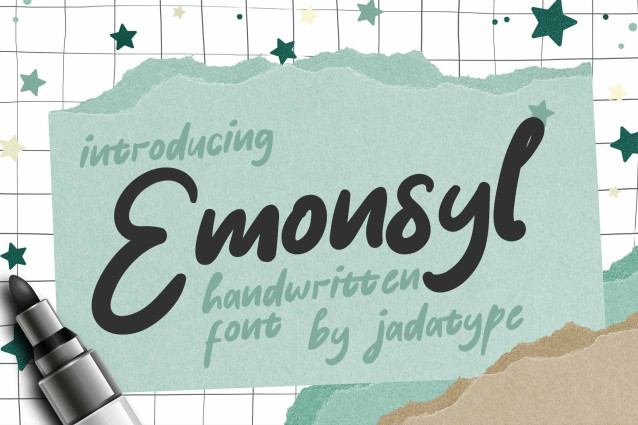
Emonsyl Font
Emonsyl Font is a handwriting font with a playful style. suitable for social media, branding, craft, products, handwritten, and so on. contains standard English letters, numbers, punctuation, and several accents that support multilingualism.